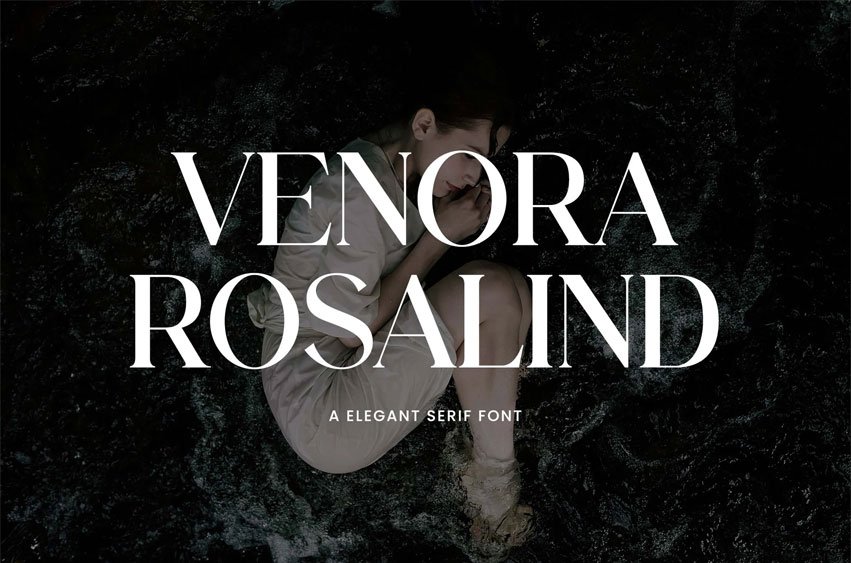
Venora Rosalind Font Elegant Serif Font that feels beautiful, classy, and modern. This font is perfectly suited for a wide variety of projects, such as signatures, stationery, logos, wedding, typography quotes, magazine or book covers, website headers, branding, packaging design, and more. Also, fashion-related branding or editorial design displays both masculine and feminine qualities.